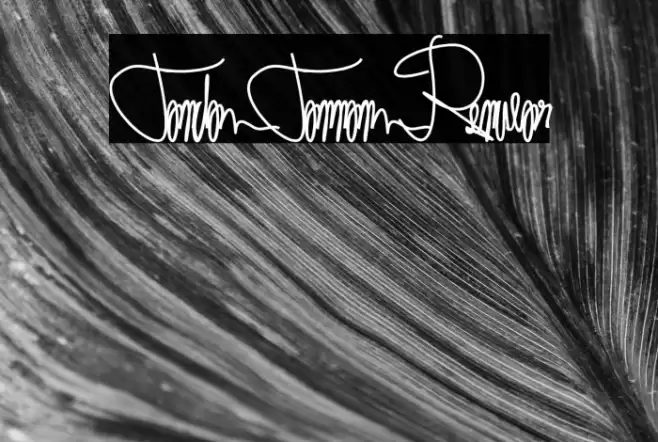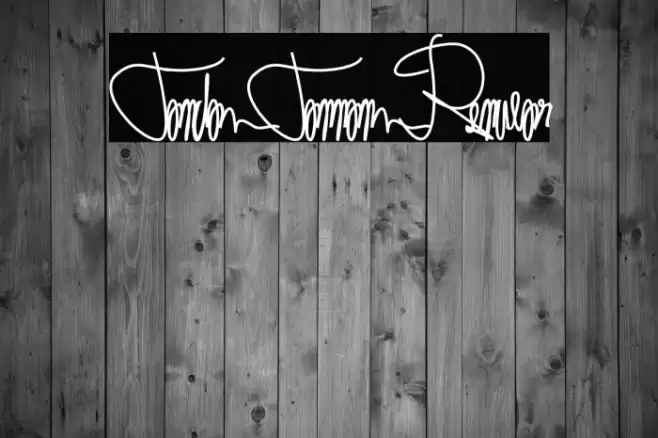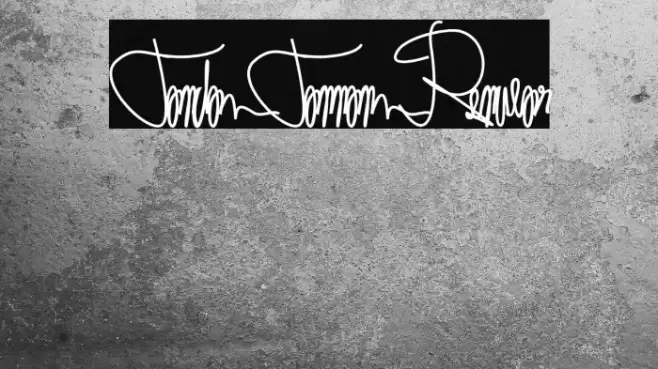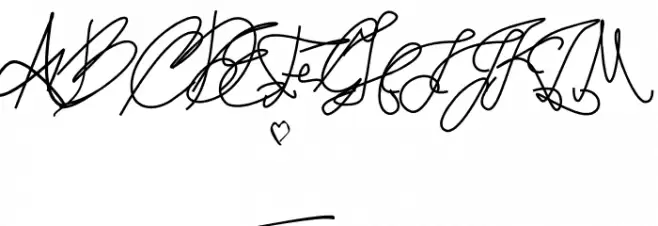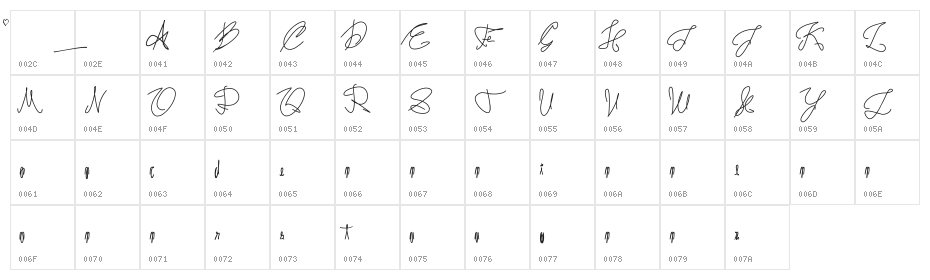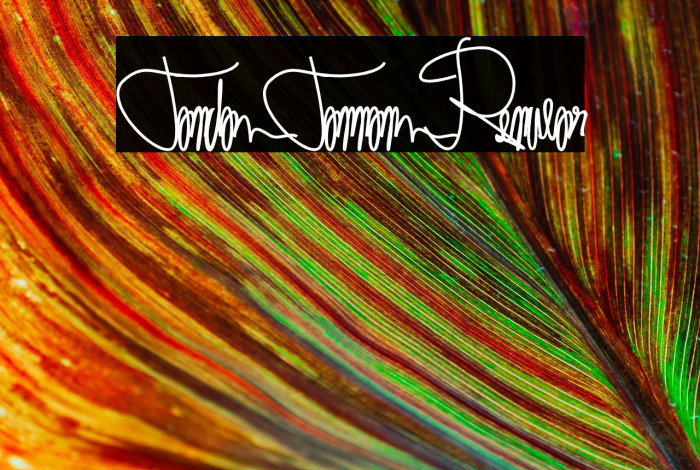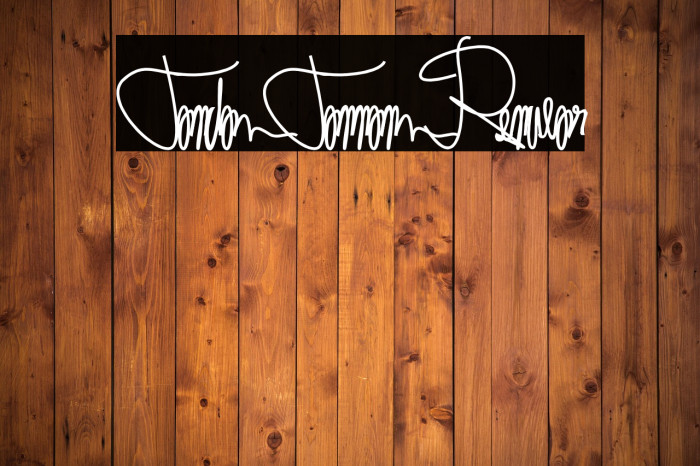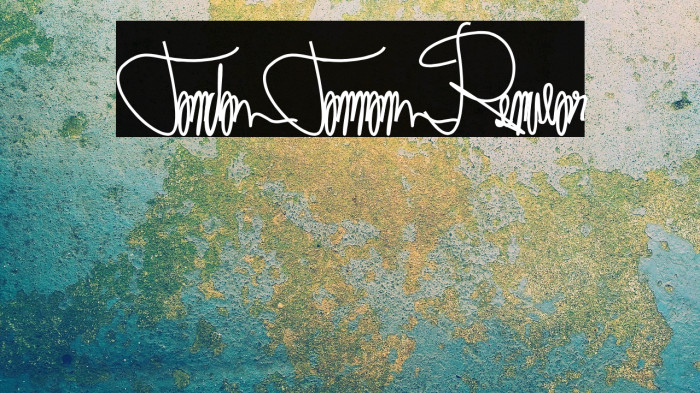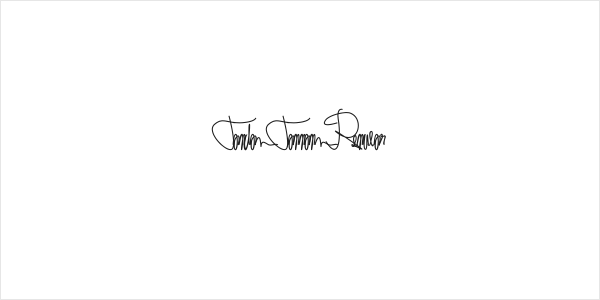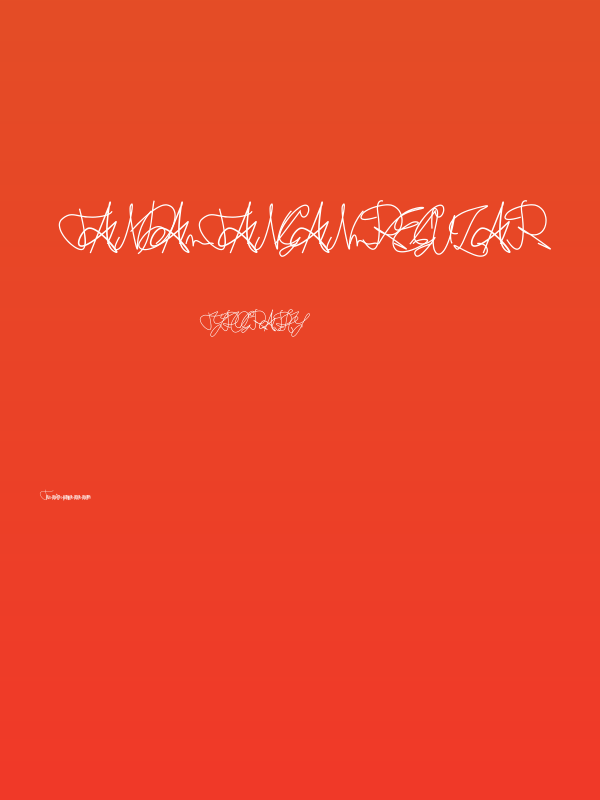
Tanda Tangan Regular Font
Tanda Tangan Regular Description
This font features an elegant, cursive style that mimics the fluidity and personal touch of a handwritten signature. The characters are intricately designed with elaborate loops and swirls, giving it a sophisticated and artistic appearance. The uppercase letters are particularly ornate, with exaggerated flourishes that extend beyond the baseline and cap height. The lowercase letters maintain a consistent flow, connecting seamlessly to create a cohesive script. The font's unique style is both decorative and expressive, making it ideal for projects that require a personal or luxurious touch. The overall design is reminiscent of traditional calligraphy, yet it maintains a modern flair that can enhance various creative applications.
An elegant, cursive font with intricate loops and swirls, mimicking a handwritten signature from Regular fonts.
- Proposed Projects: Ideal for wedding invitations, luxury branding, personal stationery, and artistic designs.
- Character Spacing: Tight
- Use Case: Logos, Invitations, Personal Branding